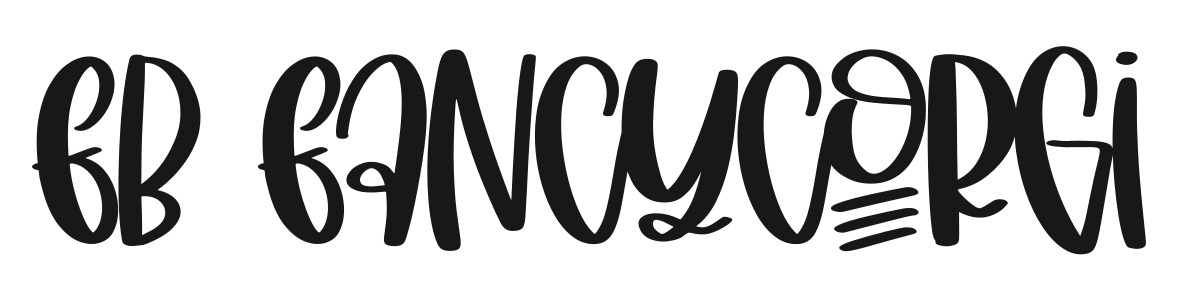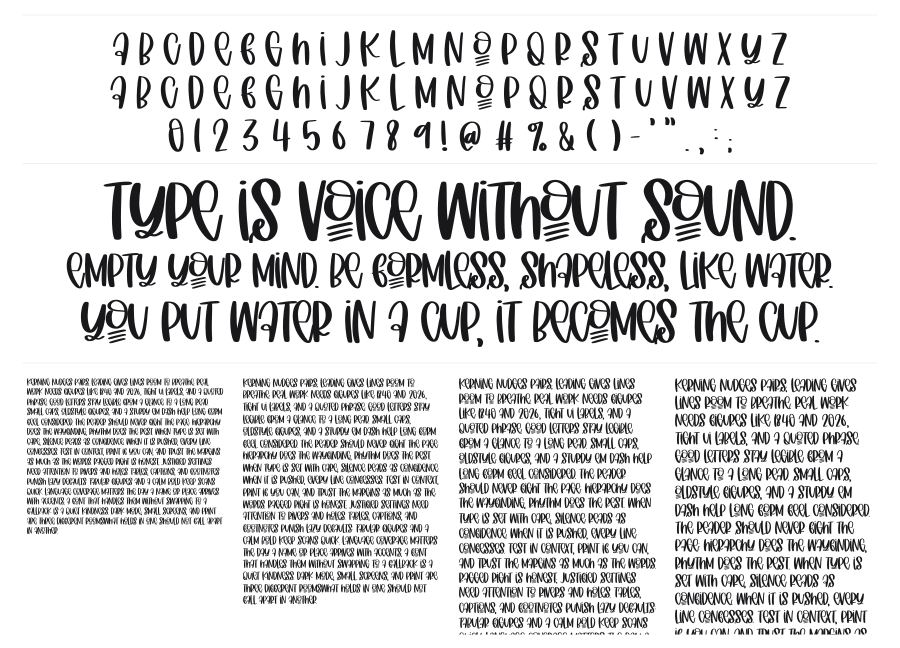
Fb Fancycorgi
Fb Fancycorgi is a bold hand-lettered casual script with an upbeat, bouncy personality. Letters vary in height and width across the word, giving it the spontaneous feel of something written with real enthusiasm. It works well for logos, packaging, and headlines where a friendly, handmade energy is the point.